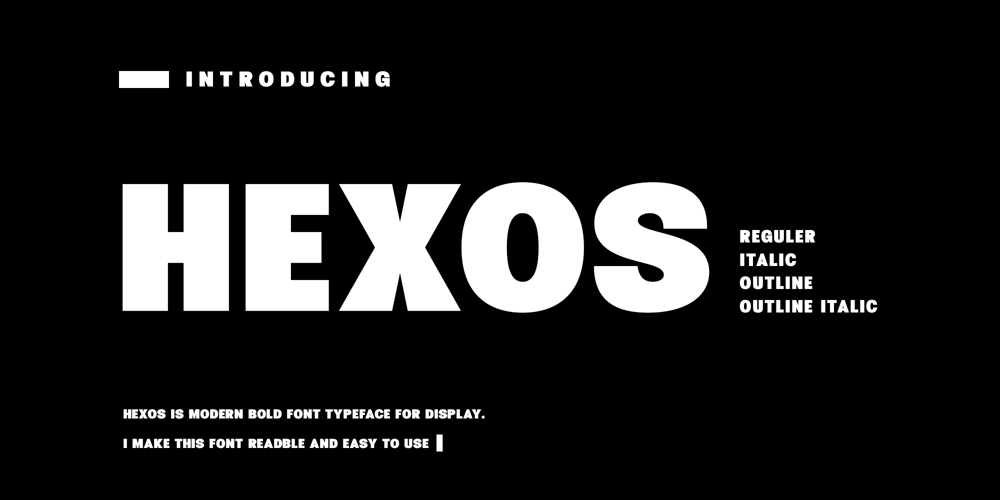
Hexos Font Family was designed by Yudi Pratama Chandra and published by RantauType. Hexos contains 4 styles and family package options. Hexos is Strong and strong font. Hexos also have 4 font their include reguler , reguler italic, outline and outline italic. The outlined fonts give a real modern feel to any project. For ligature i made into a lowercase, so it can easy to use.Hexos will perfect for many project: branding, logos, magazines, films, poster, quotes. Hexos here to make your brand to high level!!!Features Standar letter A-Z Numberial and Functional Ligature Works on PC & Mac Simple installations Accessible in Adobe Illustrator, Adobe Photoshop, Adobe InDesign, even work on Microsoft Word. Thank you for your purchase!Hope you enjoy with our font!